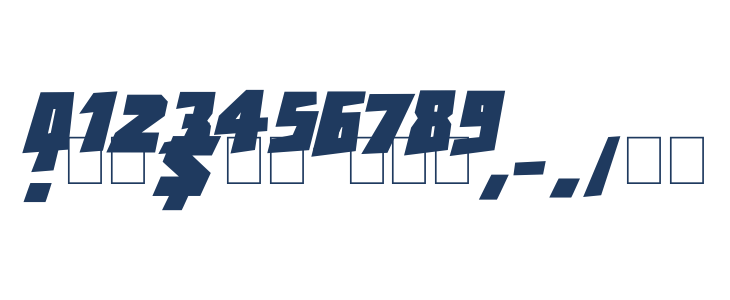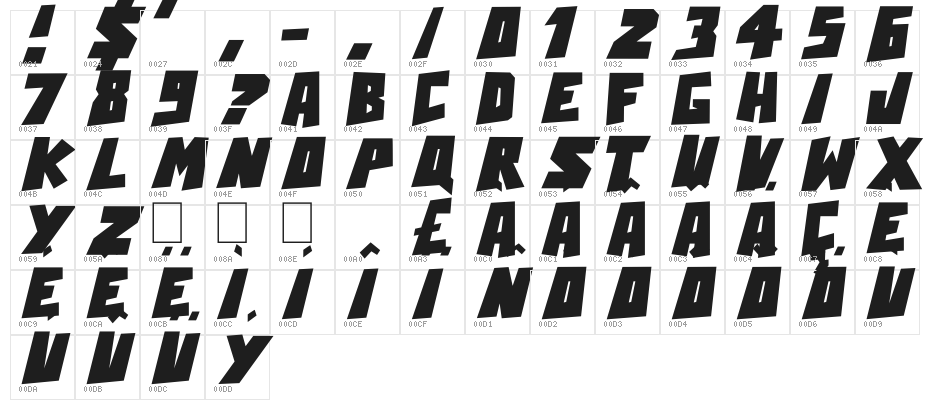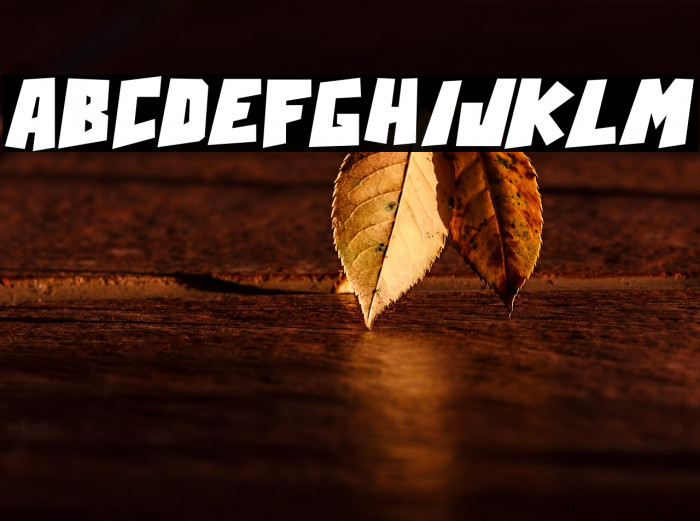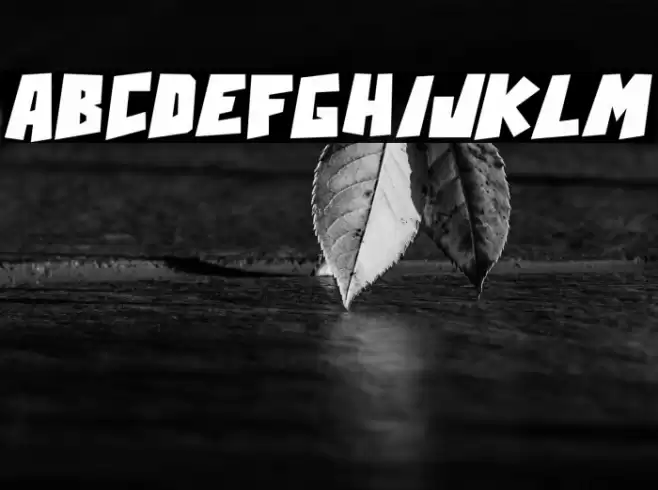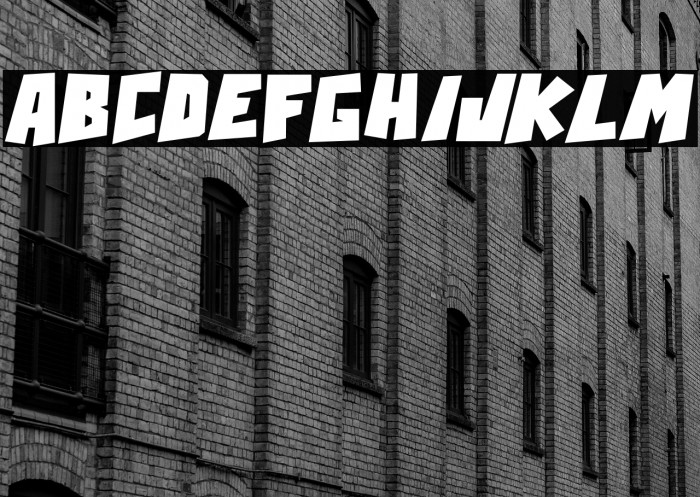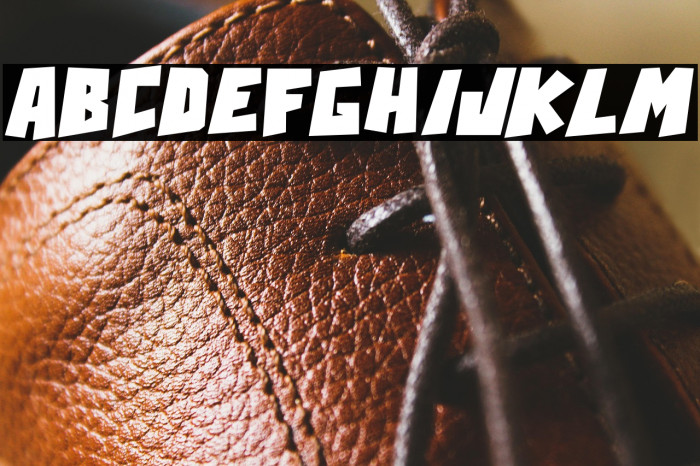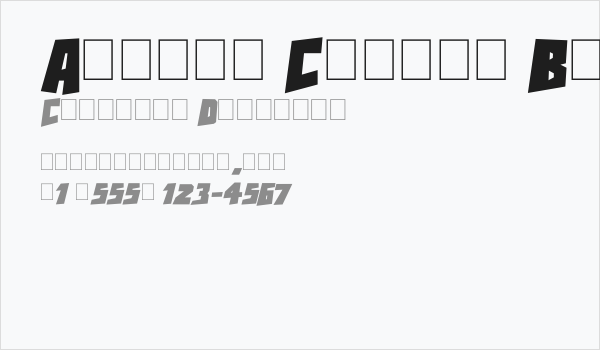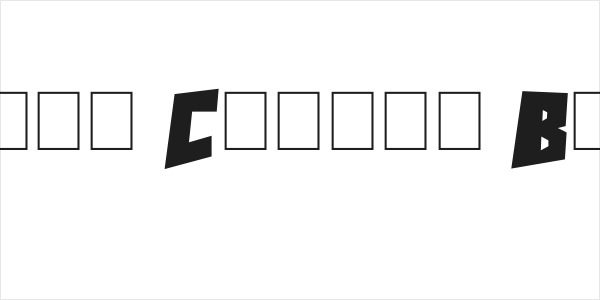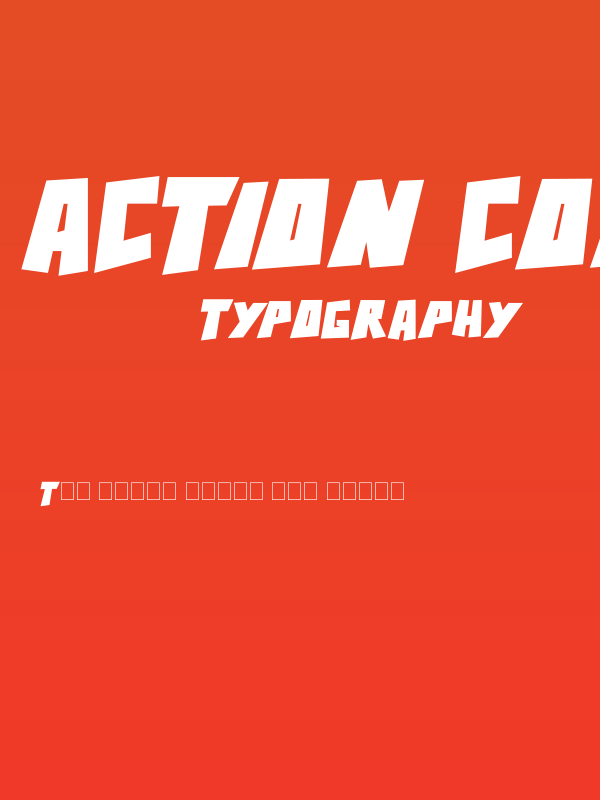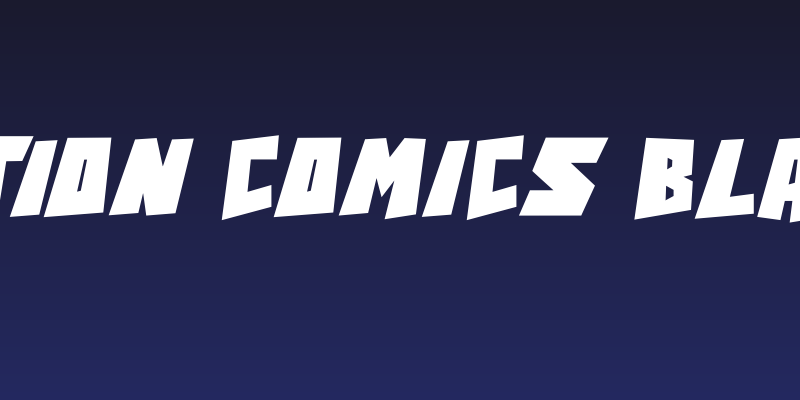
Action Comics Black Font
Action Comics Black Description
This dynamic and bold font features sharp, angular lines and a strong presence, reminiscent of classic comic book styles. The uppercase letters are particularly striking, with a forward-leaning slant that conveys motion and energy. The numbers and special characters maintain this bold aesthetic, ensuring consistency across all text elements. The font's design is ideal for capturing attention, making it perfect for headlines or titles that need to stand out. Its unique style is both modern and nostalgic, evoking a sense of action and excitement.
| Proposed Projects | Ideal for comic book covers, action-themed posters, video game titles, and branding for entertainment products. |